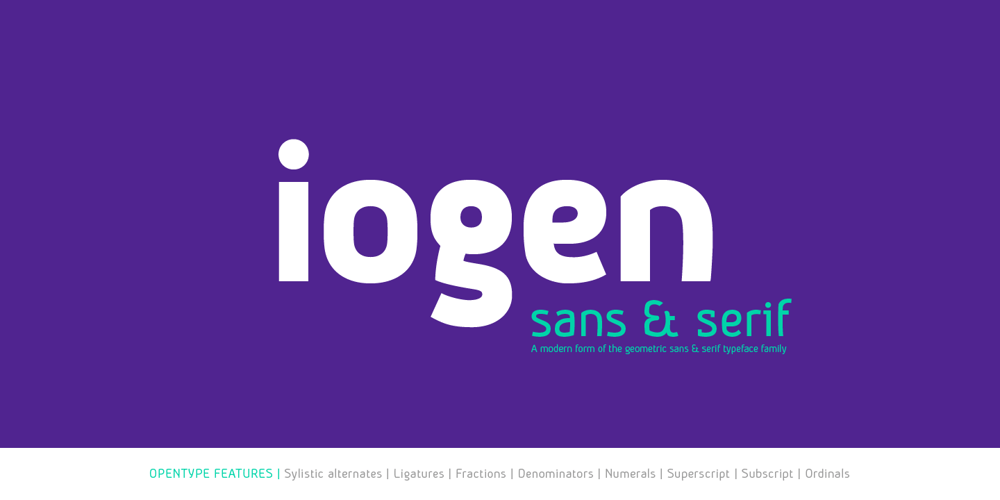
iogen
iogen font
iogen Font Family was designed by Taner Ardali and published by Taner Ardali. iogen contains 6 styles and family package options. The current design of “iogen” is a result of years of alterations since it’s original concept was born in 2010 and it needed a hallmark to make it authentic. The idea of “a typeface speaking pleasantly” is the basis on which “iogen” is constructed. Hereby, the letter forms are based on sharp directional changes and curved vertical strokes, allowing it to speak clearly and pleasantly. The sharp corners, open apertures and open counters of iogen also ensure legibility in smaller sizes. The Iogen family has 6 members with 3 basic weights with sans and serif styles. It supports the Latin extended character set and opentype features like stylistic alternates, ligatures, fractions, denominators, numerators, superscript, subscript and ordinals. Iogen is a good fit for all of design needs with it’s wide range of character sets and features.